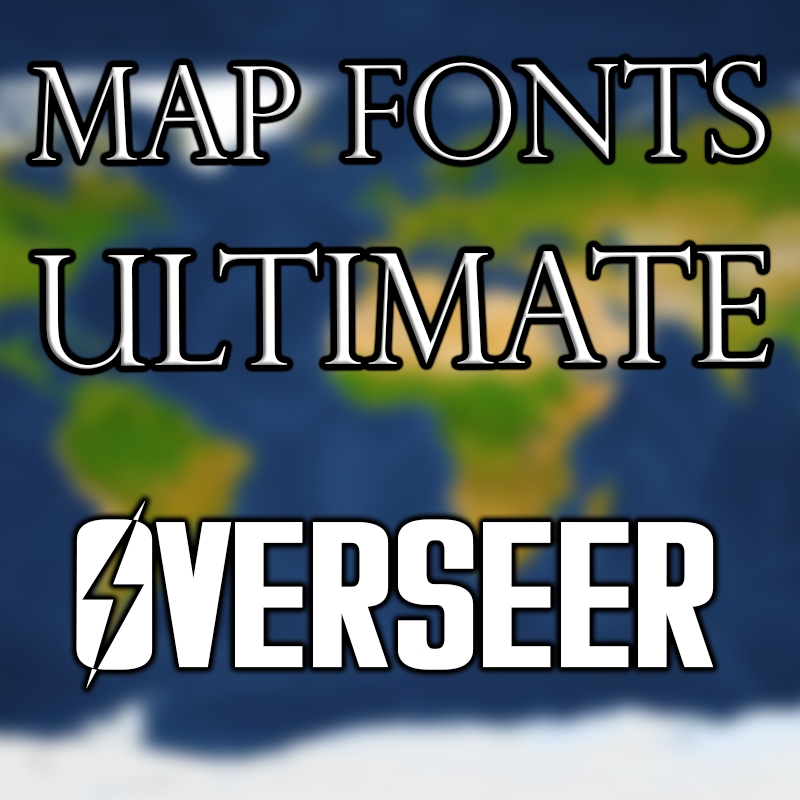
Map Fonts Ultimate - Overseer
Font: Overseer With MFU Overseer, war never changes.
Overseer is the original font featured in the Fallout video game series by Bethesda Softworks.
Map Fonts Ultimate (MFU) is a project by Generalis aiming to turn as many fonts as possible into standalone map font mods for Hearts of Iron IV..